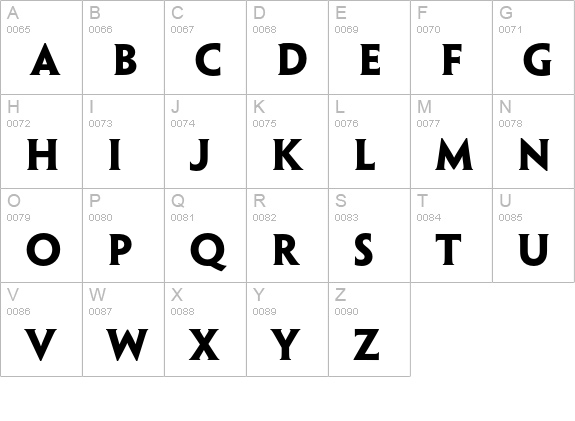
Penumbra HalfSerif Std Bold Font Details
Penumbra HalfSerif Std Bold is a strong, high-contrast variant in the Penumbra typeface family \xE2\x80\x94 well suited to headlines, attention-grabbing titles, and strong calls-to-action.
Penumbra HalfSerif Std Bold is a striking and versatile font that exudes sophistication and elegance. Its bold and confident design makes it perfect for headlines, titles, and any other attention-grabbing text. The unique combination of serifs and sans-serif elements creates a harmonious balance between traditional and modern aesthetics. With its strong and commanding presence, Penumbra HalfSerif Std Bold demands attention and leaves a lasting impression. It is a font that is capable of making a statement, whether it is used in print or digital media. Its distinct and memorable character ensures that any text set in this font will stand out from the crowd. One of the most remarkable aspects of Penumbra HalfSerif Std Bold is that it is available for free. Yes, you heard it right! This remarkable font is freely available to download at FontsMarket.com. Now, you can enhance your designs without having to spend a penny. This accessibility makes Penumbra HalfSerif Std Bold an excellent choice for designers, students, and anyone looking to add a touch of professionalism and style to their projects. So, why wait? Take advantage of this incredible opportunity to elevate your typography game with Penumbra HalfSerif Std Bold. Download it for free at FontsMarket.com and let your creativity soar.